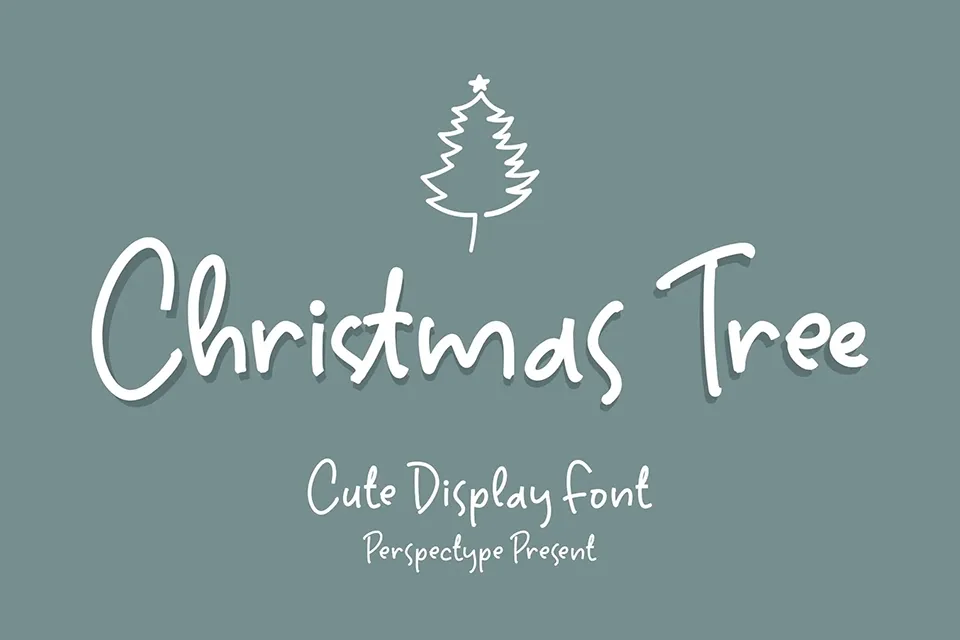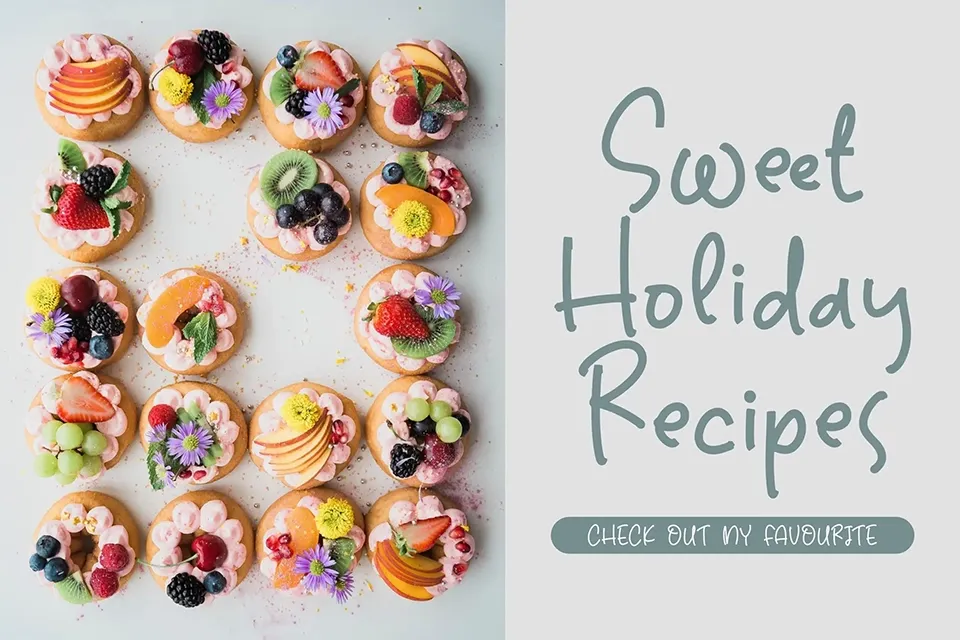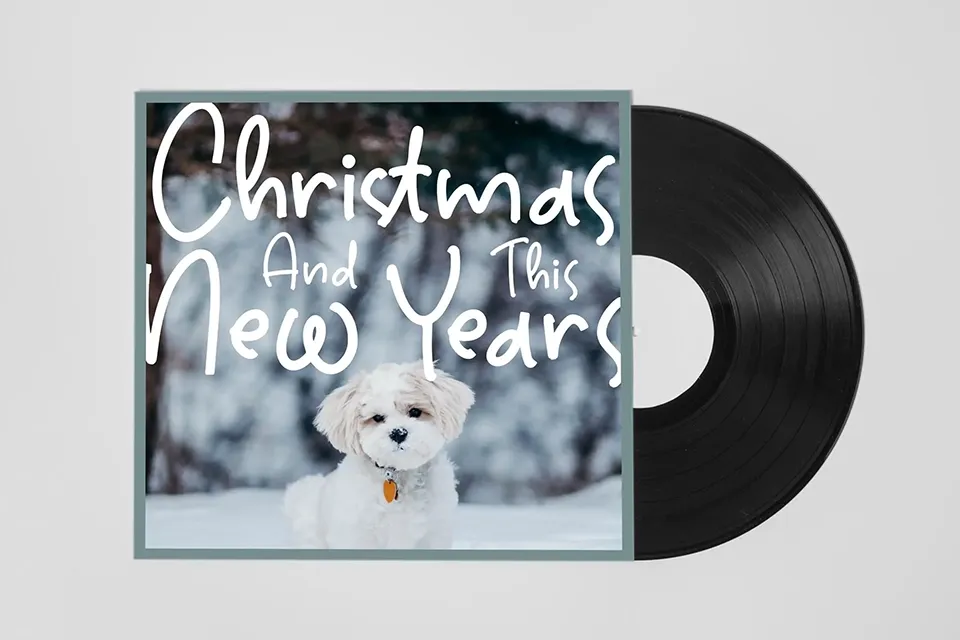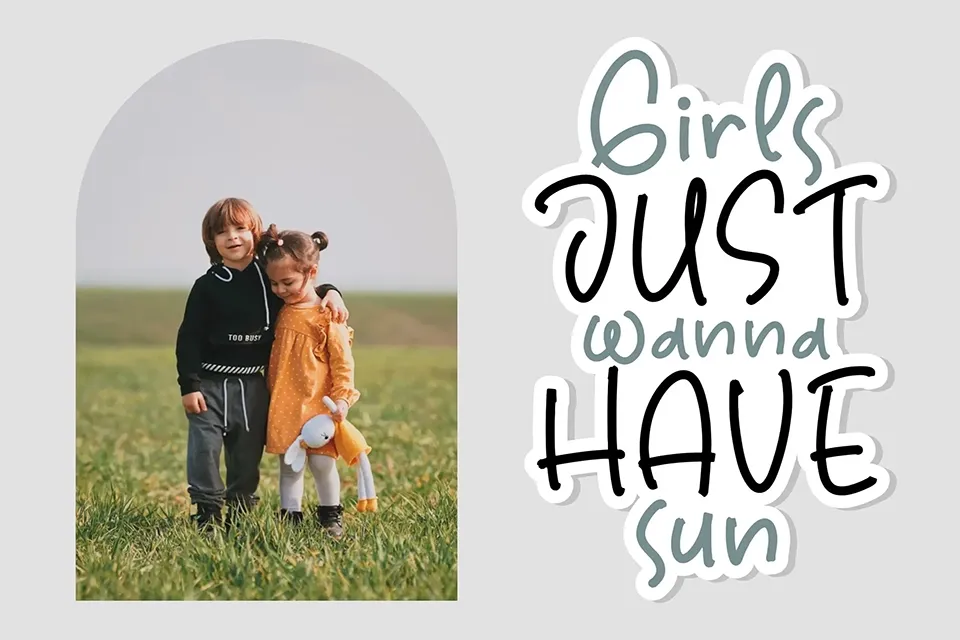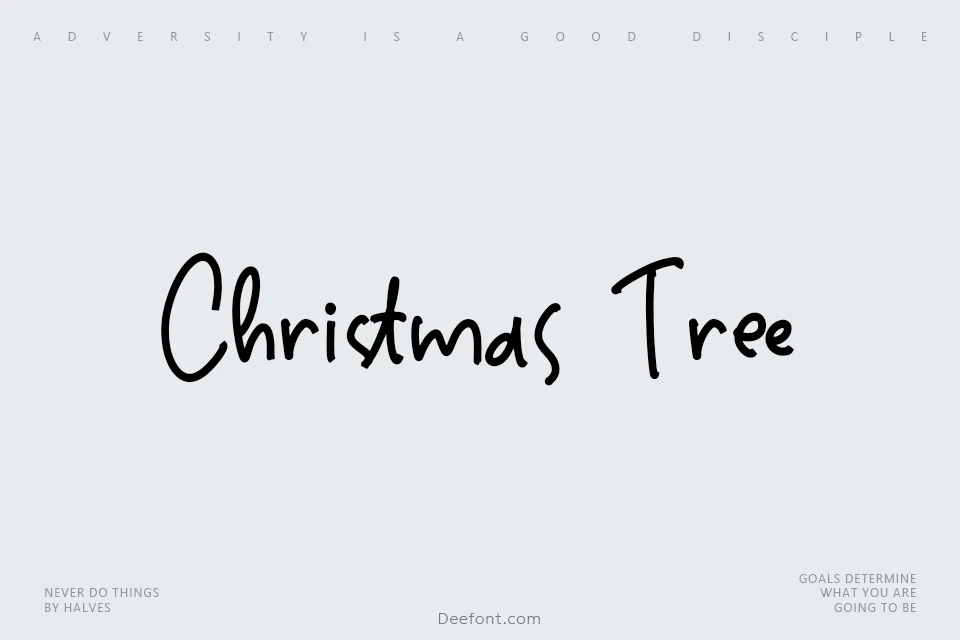
Christmas Tree Font
Christmas Tree Font is a charming and playful display typeface designed to bring festive cheer to your creative projects. With its handwritten style and whimsical letterforms, this font captures the joyful spirit of the holiday season. The design features a cute Christmas tree illustration, adding a delightful touch to any text. Perfect for greeting cards, invitations, posters, and holiday branding, Christmas Tree Font stands out with its friendly and approachable look. Its unique character makes it ideal for both digital and print use, ensuring your holiday messages are warm, inviting, and full of seasonal magic.